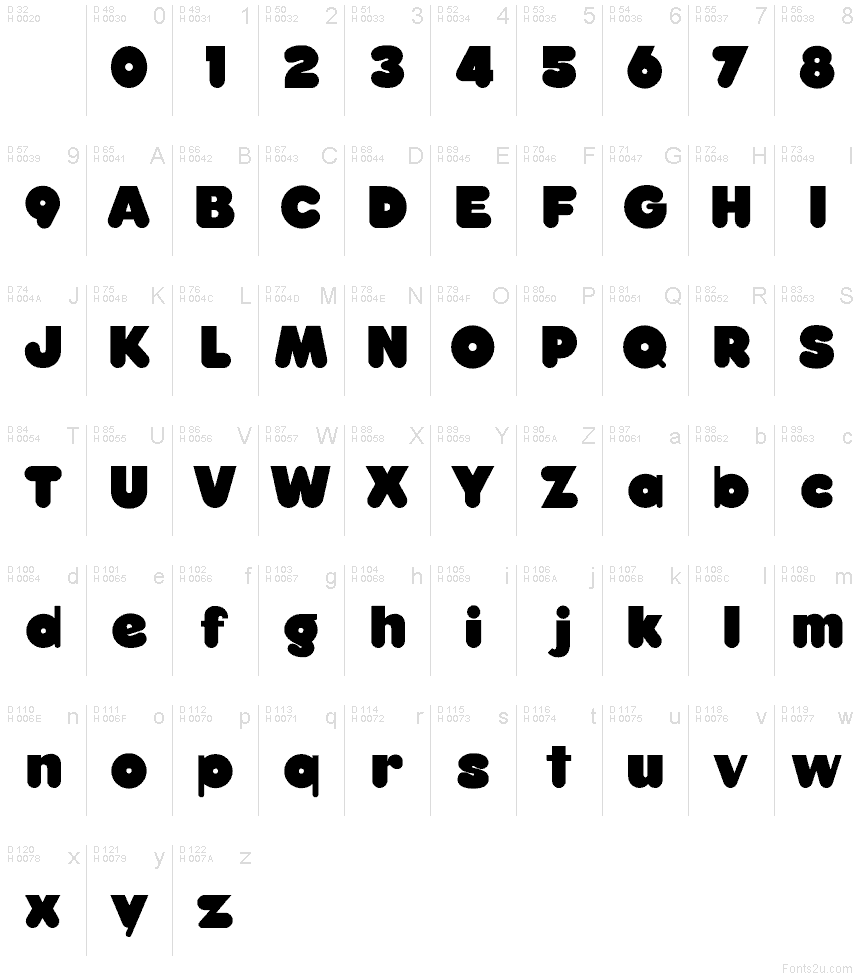
Tokyo City Pop DEMO
Tokyo City Pop font by Ikiiko Type is a bold display typeface. Rounded, geometric, and ultimately whimsical in nature, this retro-inspired font carries a vibrant presence. Its nostalgic appearance helps it make an effective punctuation to your texts as this free display font draws attention whenever it appears.
Use the Tokyo City Pop typeface for packaging design, posters, headlines, website design and development, UX and UI projects. Enjoy also using it in flyers, social media posts with fun copy text included, and magazine headers.